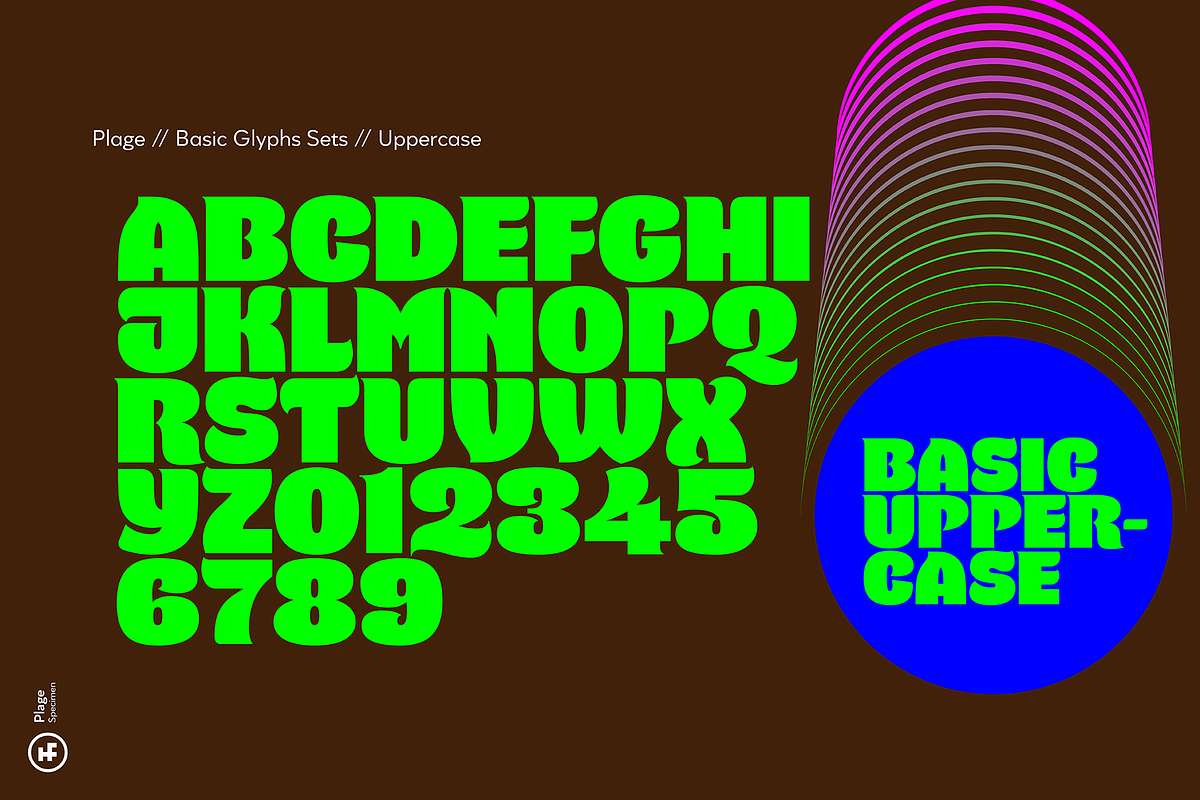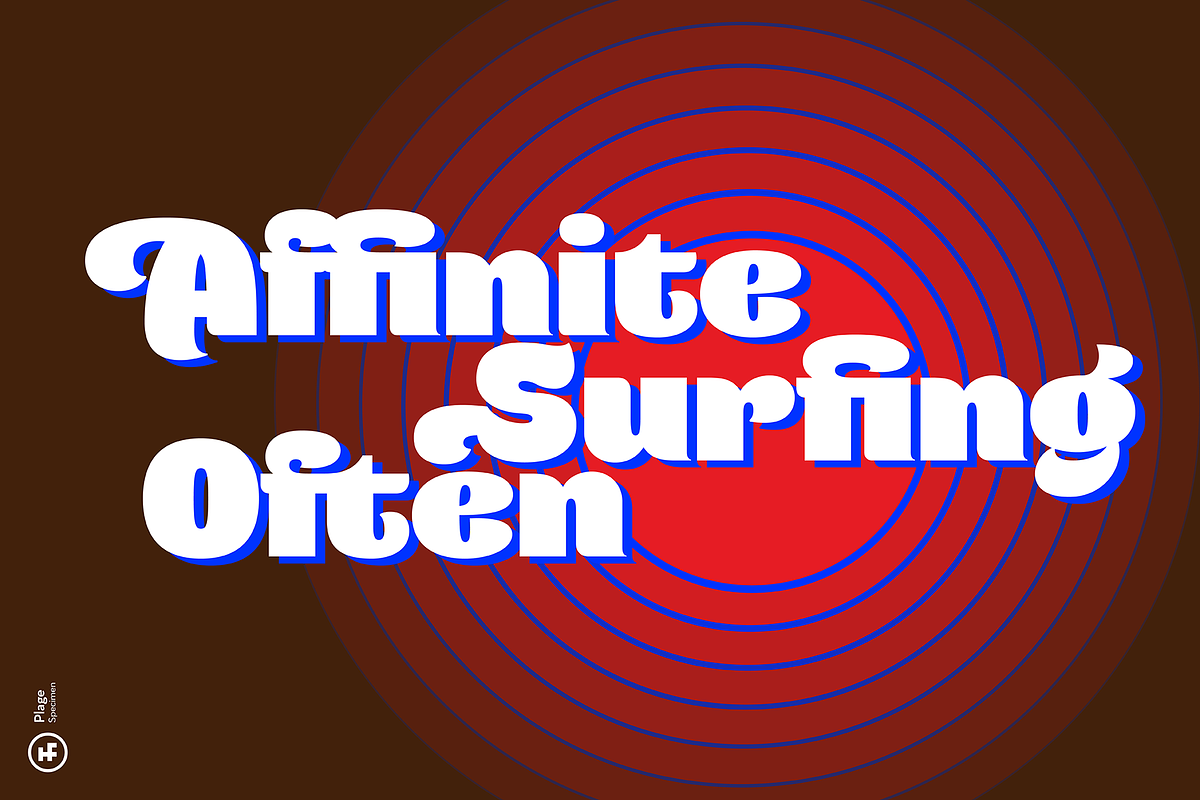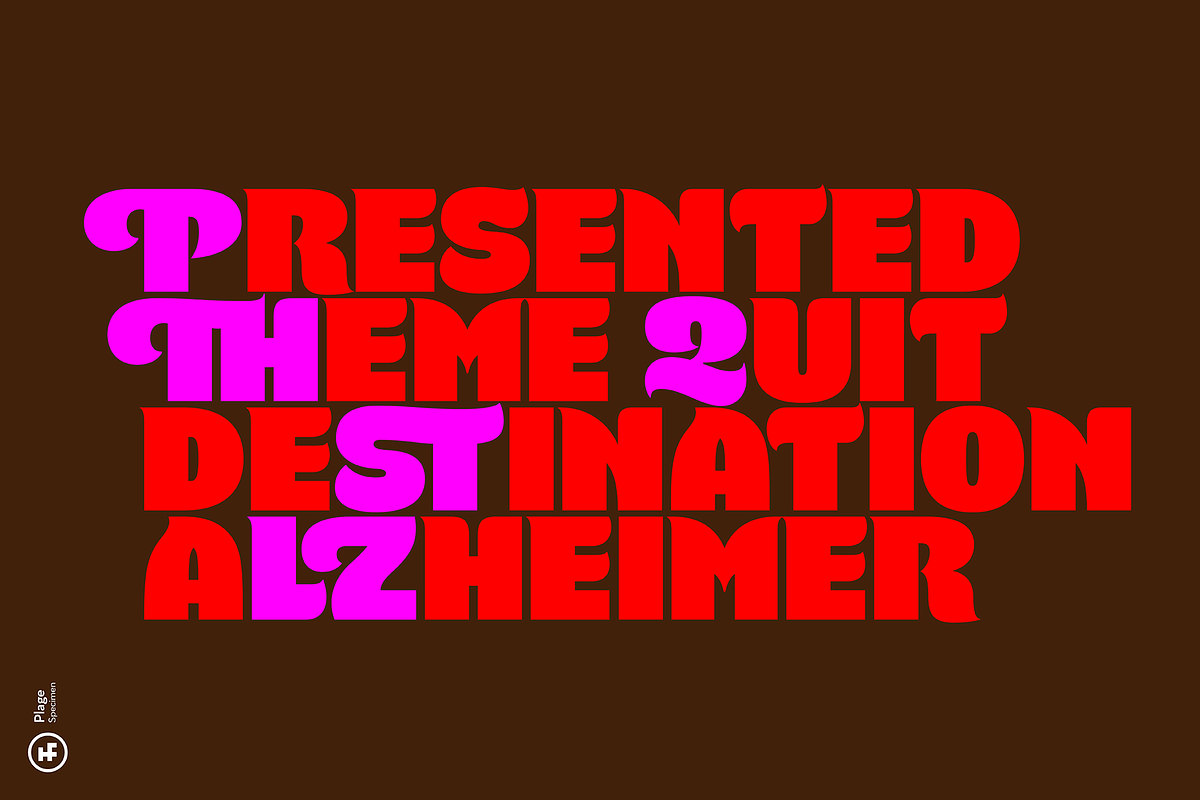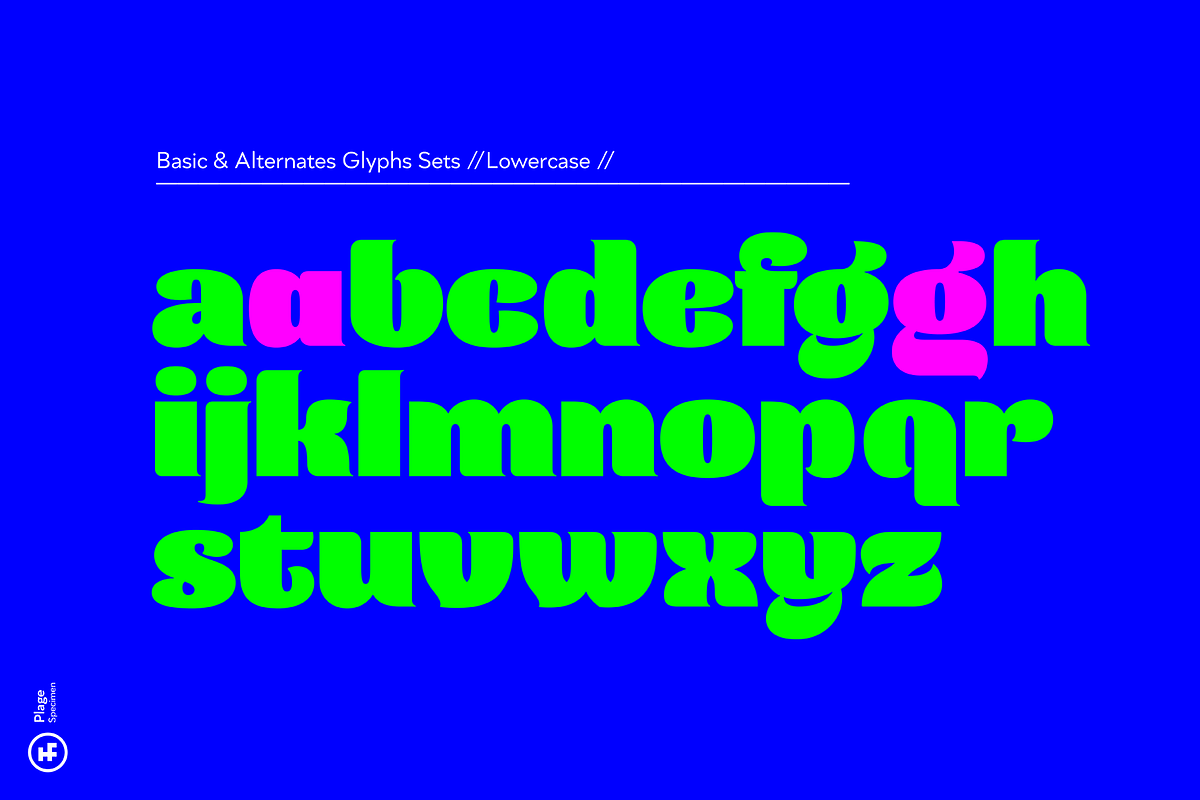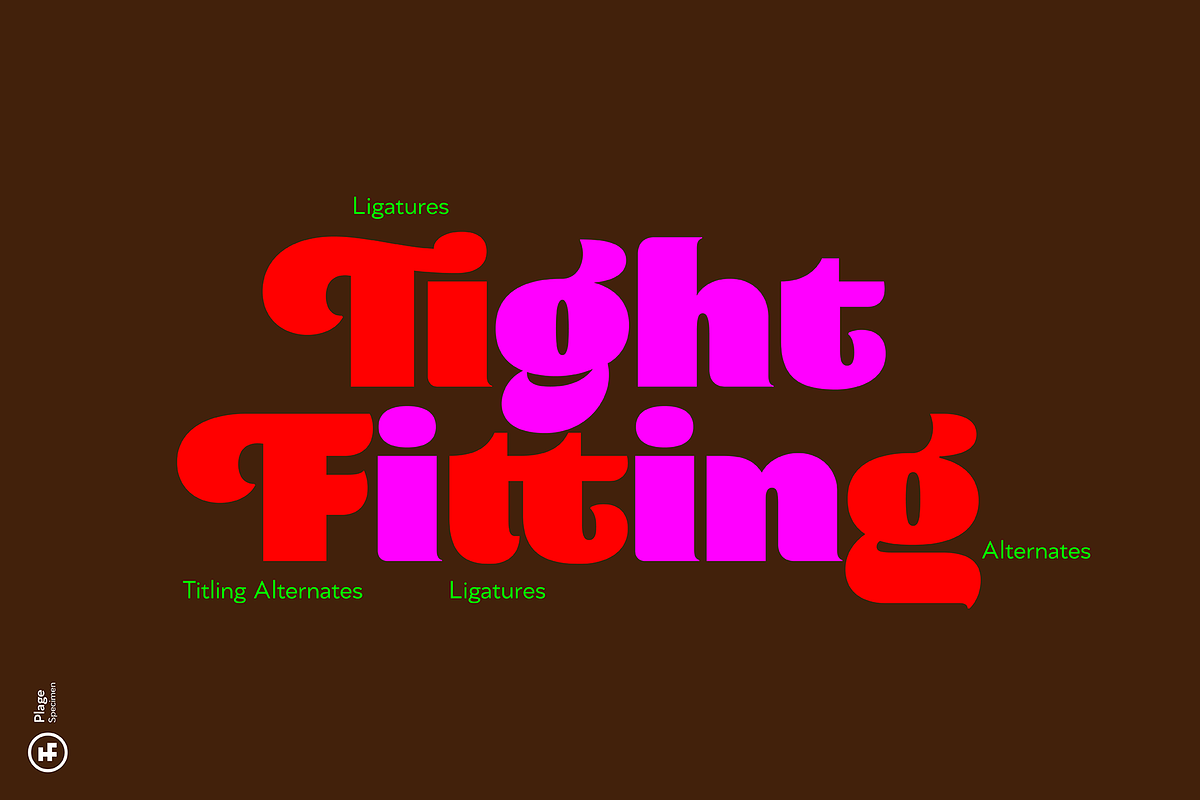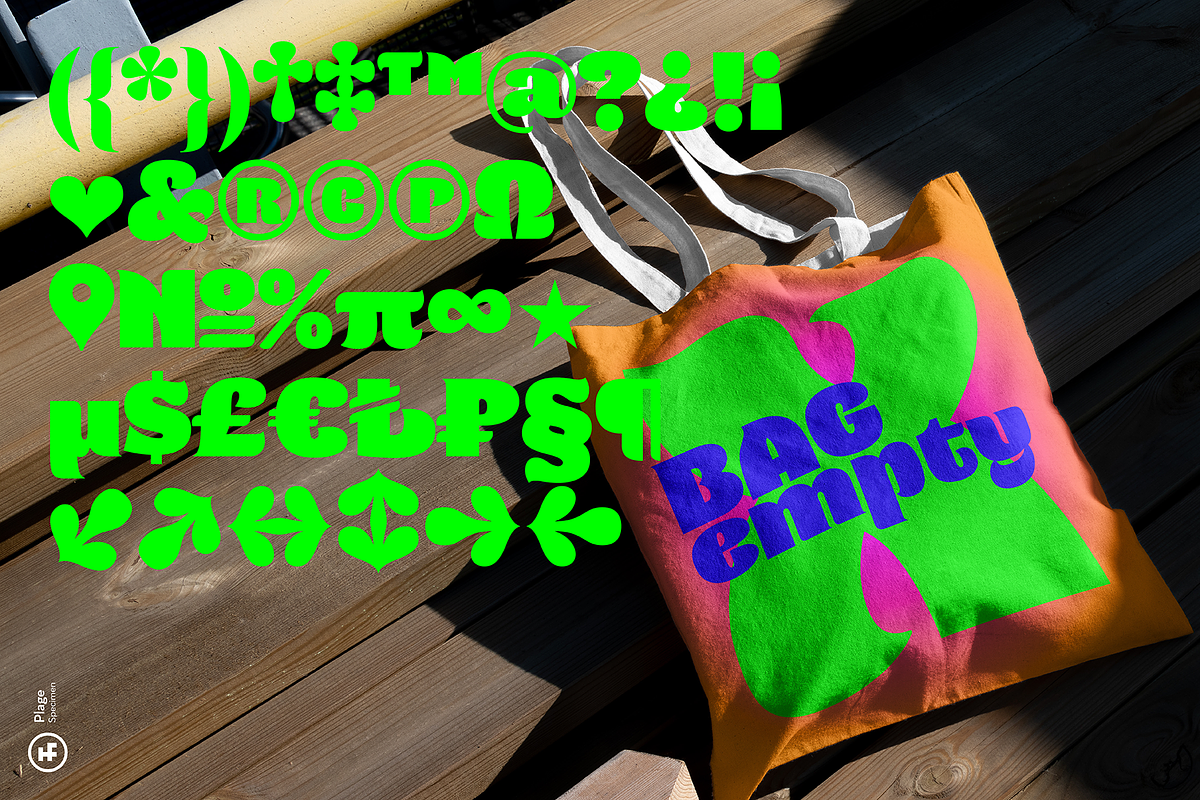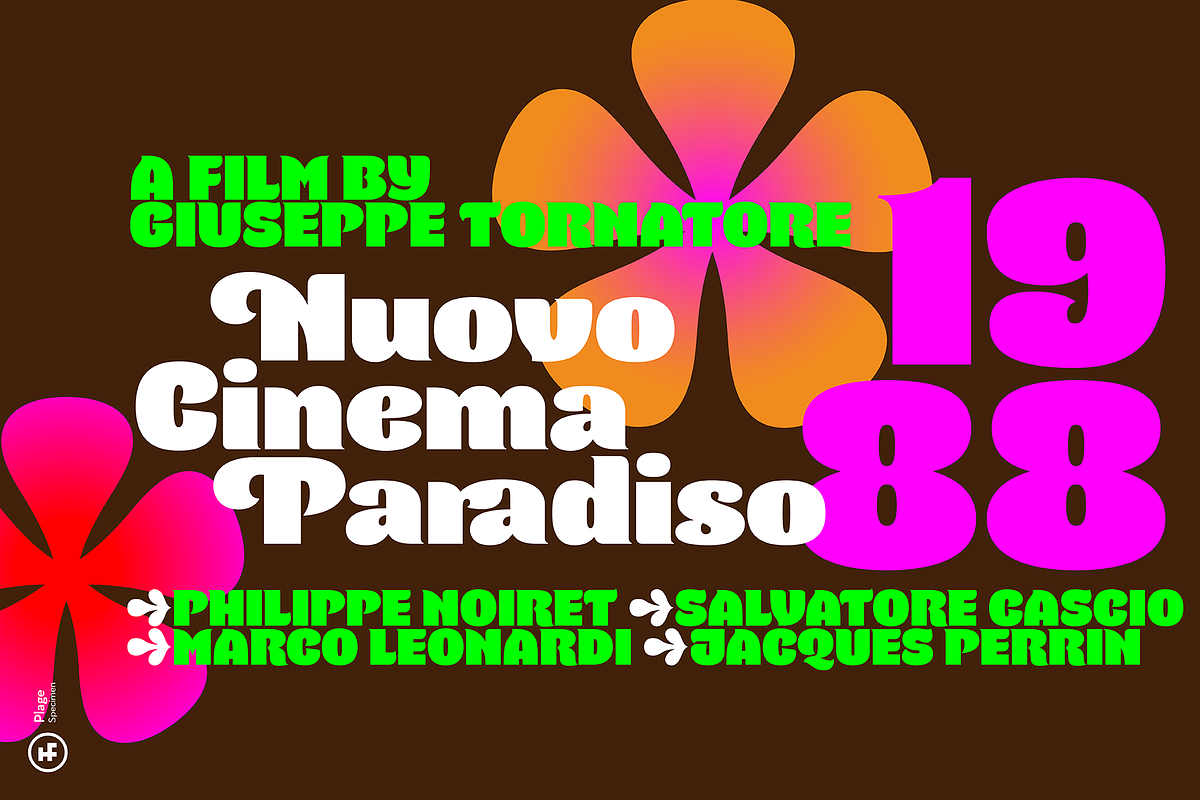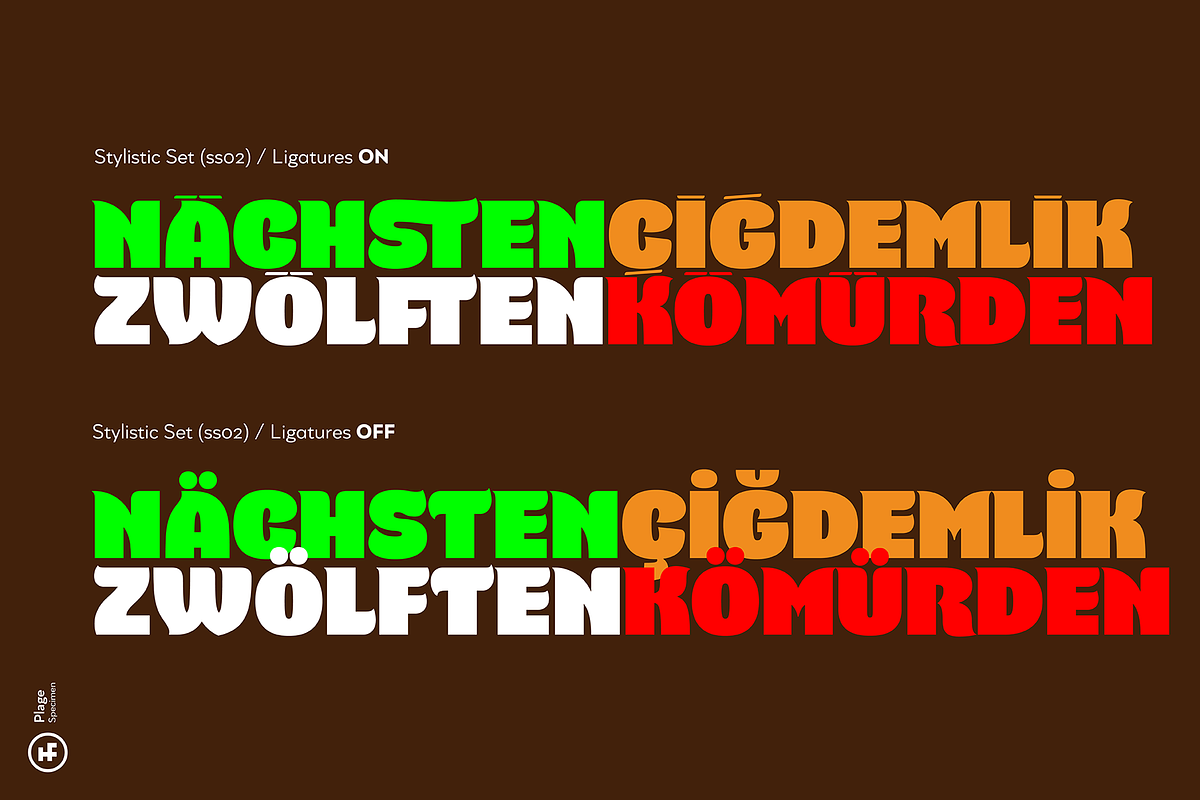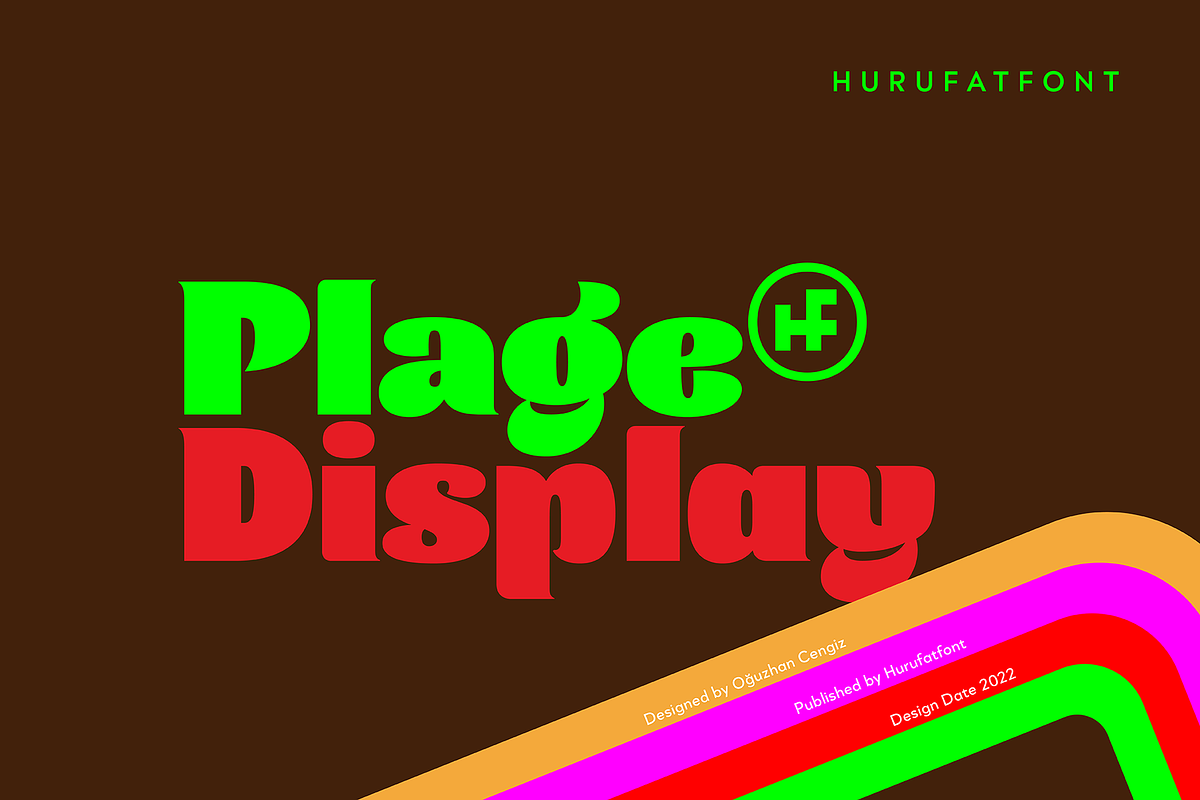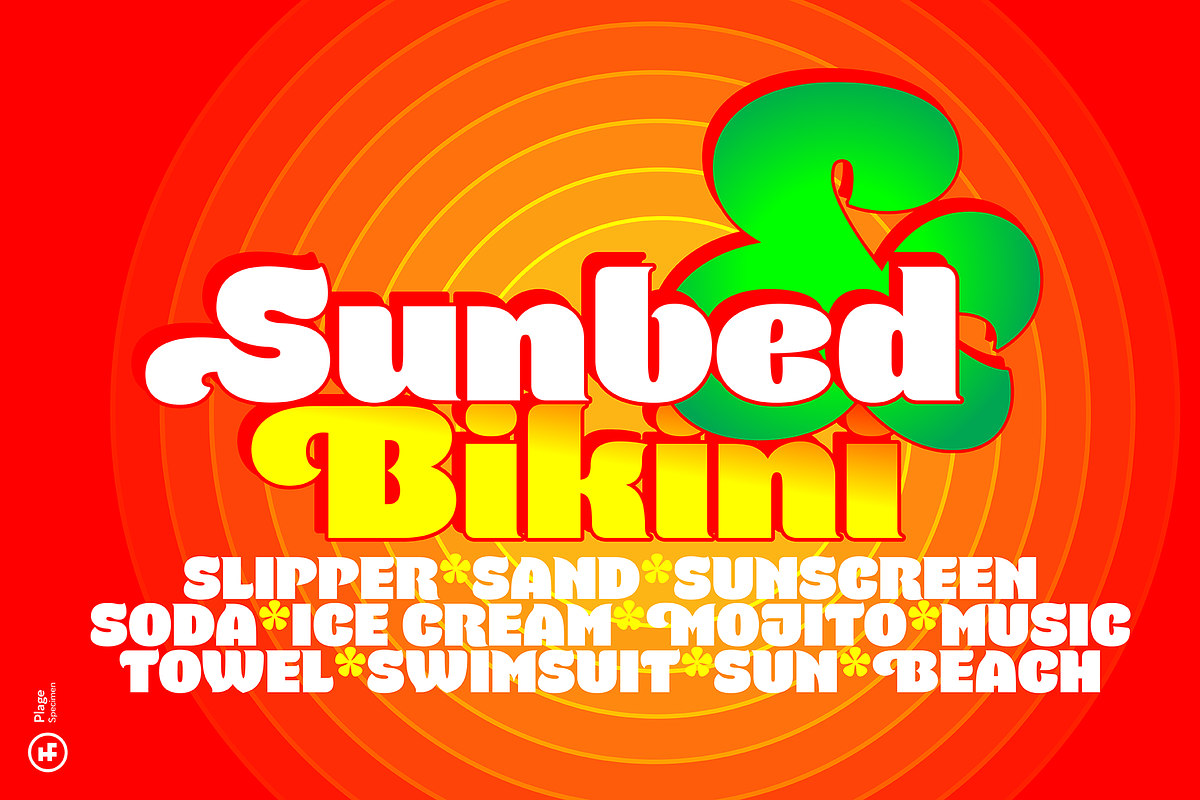
Plage Display
PLAGE DISPLAY
Plage draws inspiration from the fluid and organic typography of the '60s and '70s. Ideal for branding, poster and packaging designs. Equipped with rich ligature and opentype features for professional typographic designs. Diacritical marks in line form, which was widely used by graphic designers in Turkey at that time, were added as a style set (ss02).